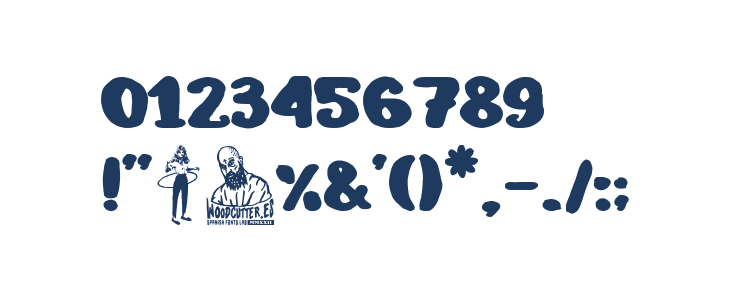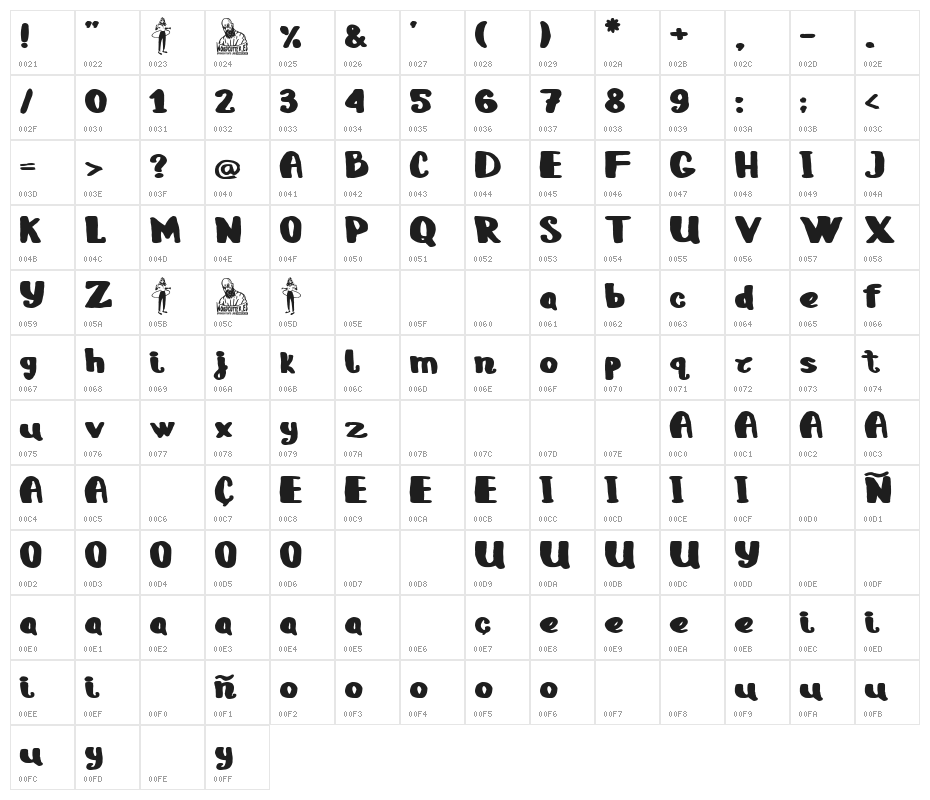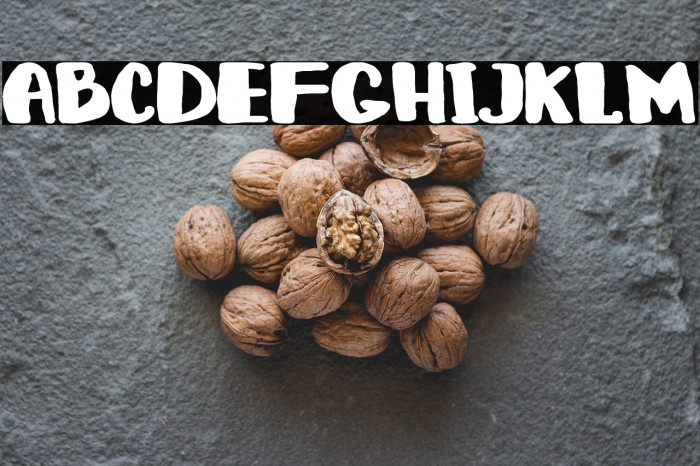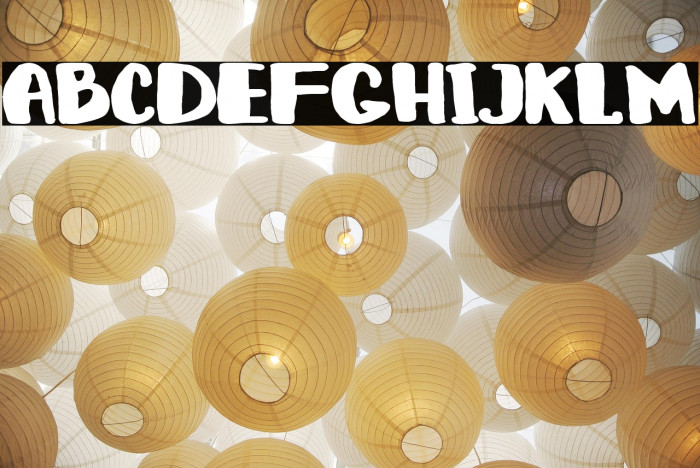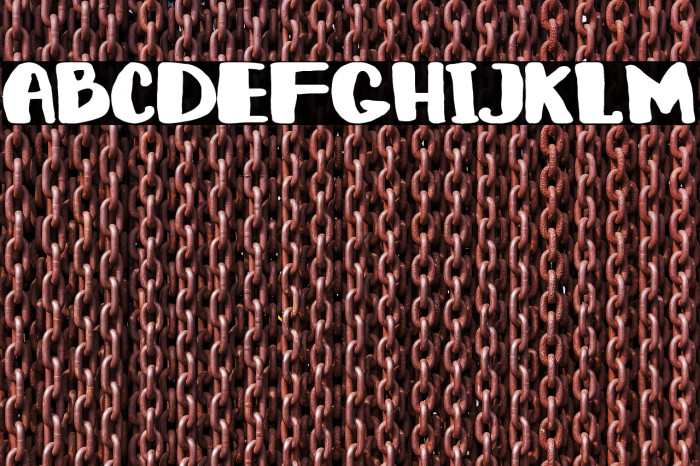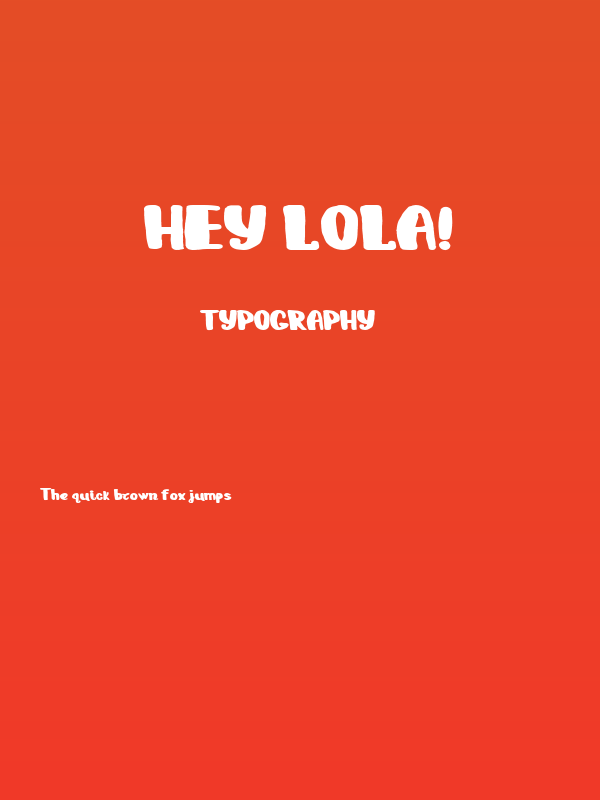
Hey Lola! Font
Hey Lola! Description
This font features a bold and playful style with a hand-drawn appearance. The characters are rounded and slightly irregular, giving them a whimsical and friendly feel. The uppercase and lowercase letters maintain a consistent weight, while the numbers and special characters complement the overall design. The font's unique personality makes it stand out, with a slightly cartoonish vibe that adds charm and approachability. The strokes are thick and consistent, providing a strong visual impact, while the spacing between characters is relatively tight, enhancing its boldness.
| Proposed Projects | Ideal for children's books, playful branding, posters, and creative projects that require a fun and approachable aesthetic. |